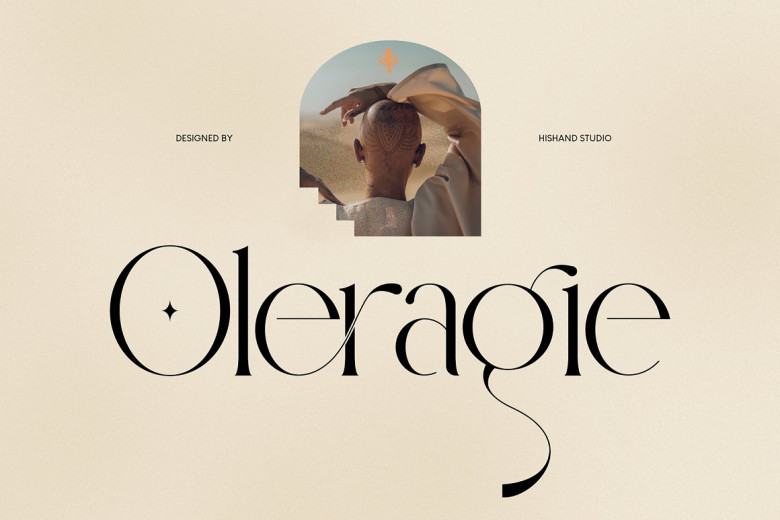
Oleragie Font
Oleragie is a classic contemporary serif font that draws its style from Egyptian and Middle Eastern atmosphere, perfect for those who seek elegance with thin modern lines in their designs. This font comes equipped with two font families; Oleragie comes with only one font family available right now.
Oleragie Serif Font